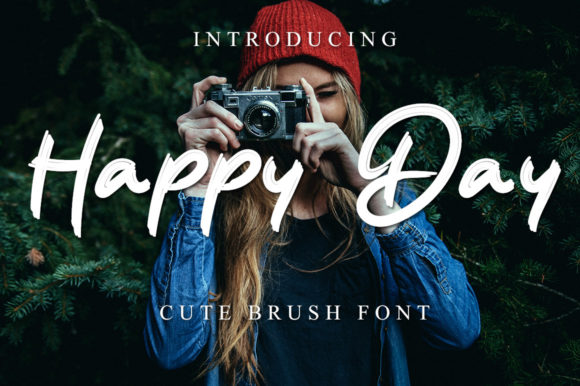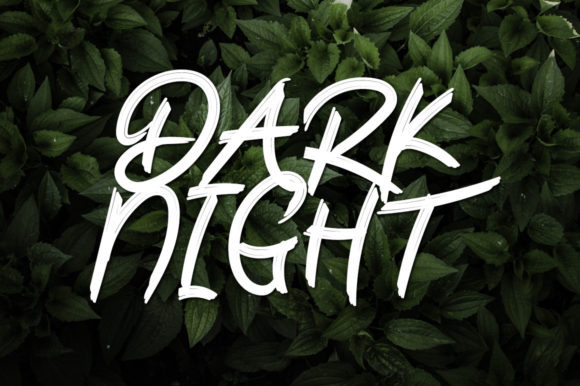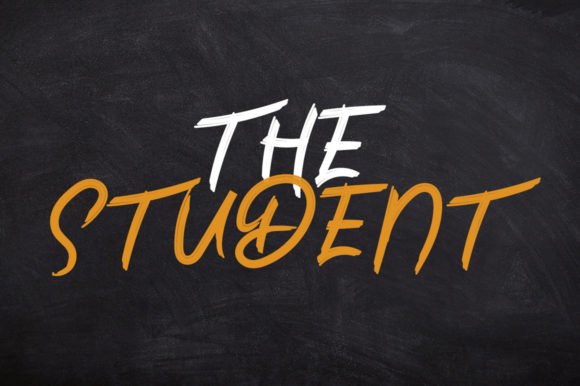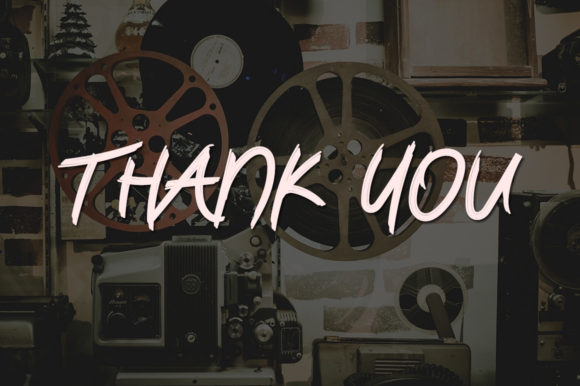
Happy Day Font
About Happy Day Font
Happy Day is a distinct and brushed handwritten font. This font was particularly crafted for those who need a beautiful and refreshing look to their designs.